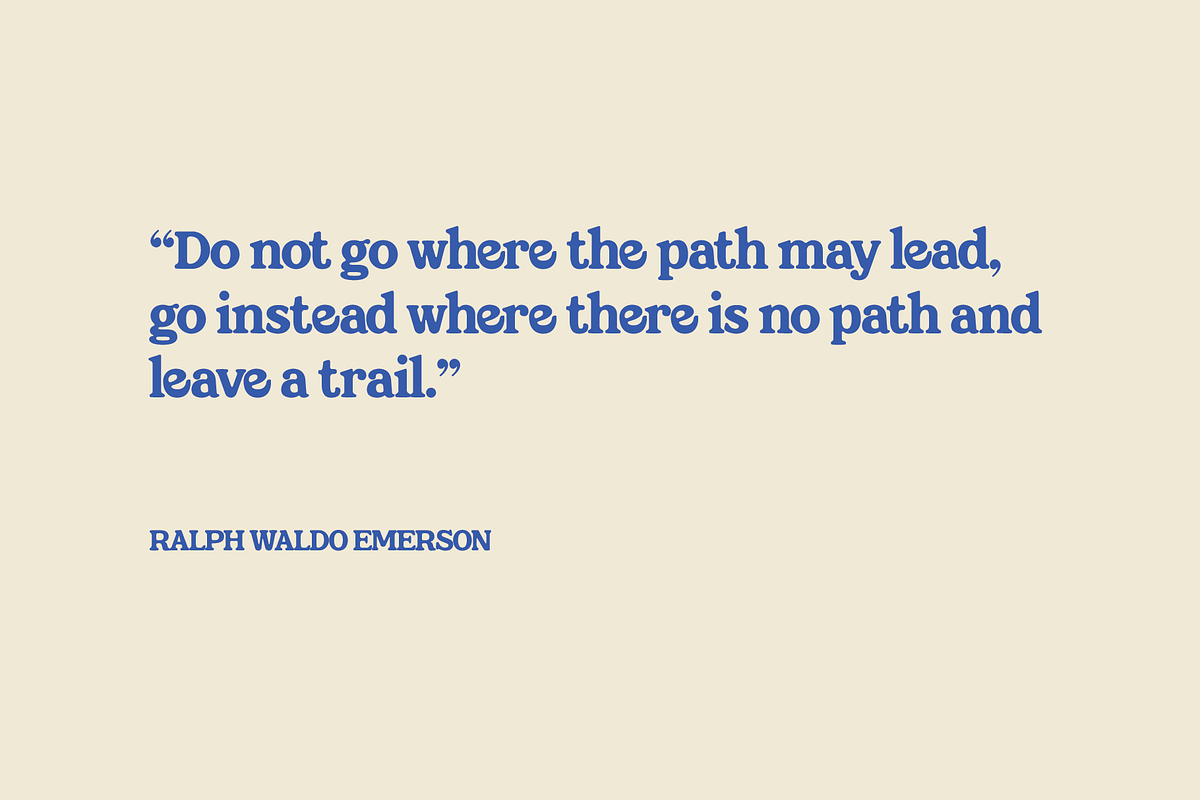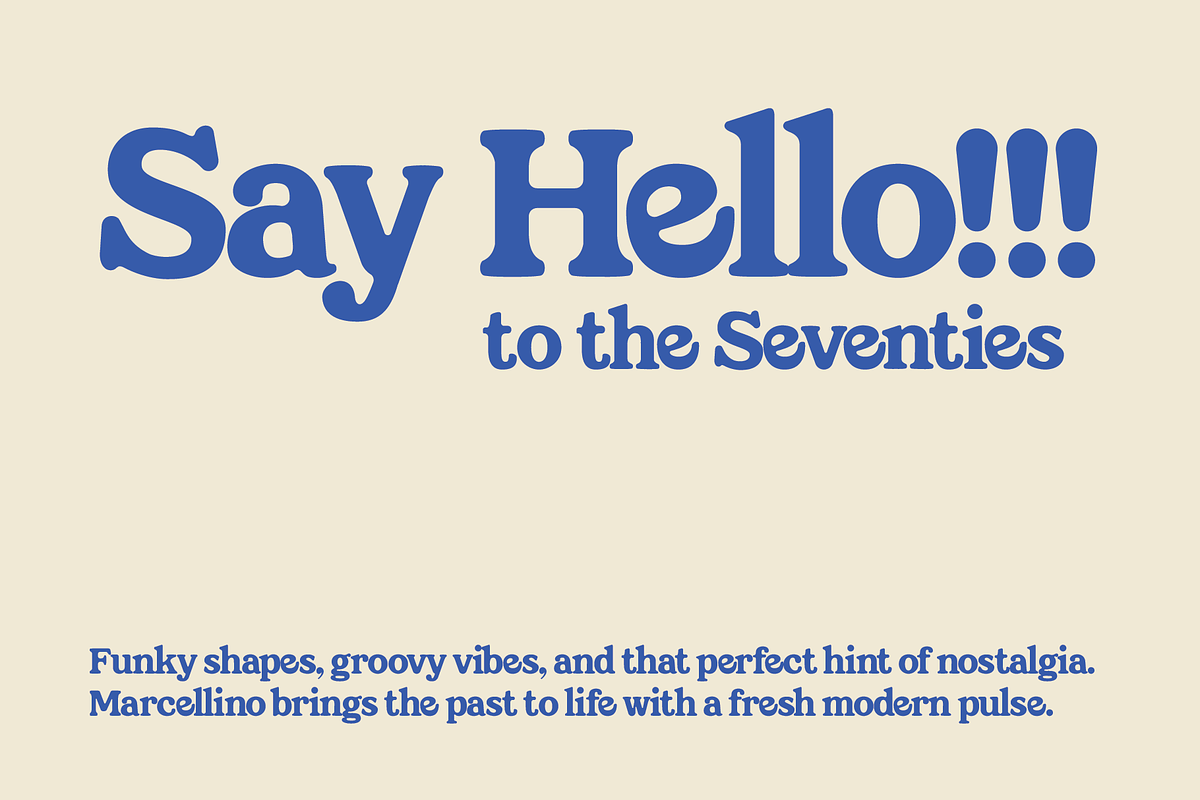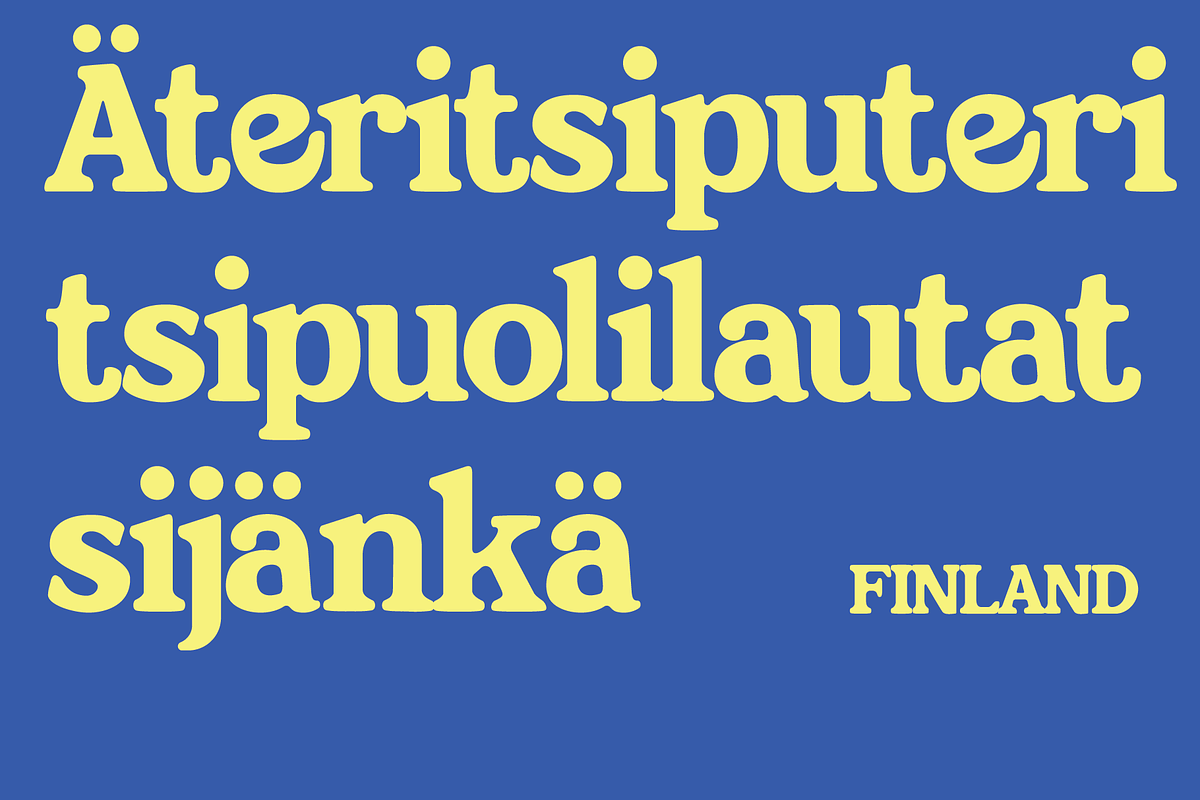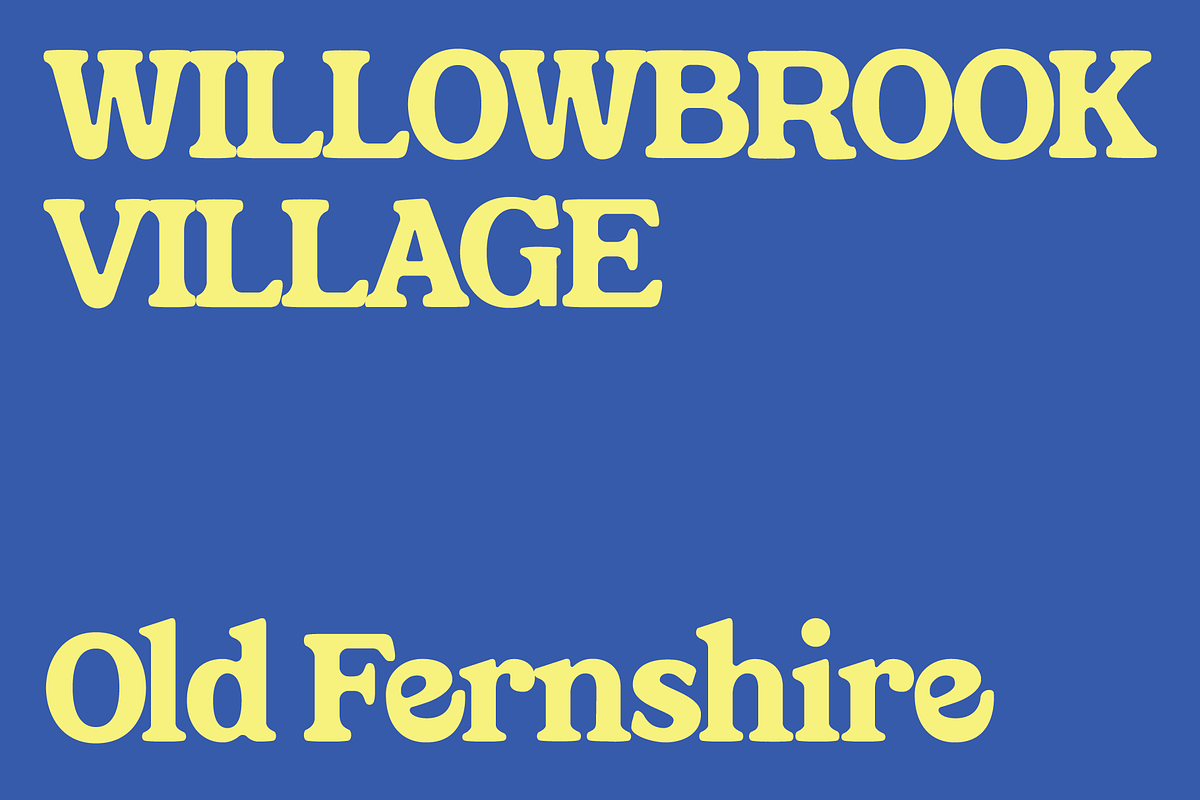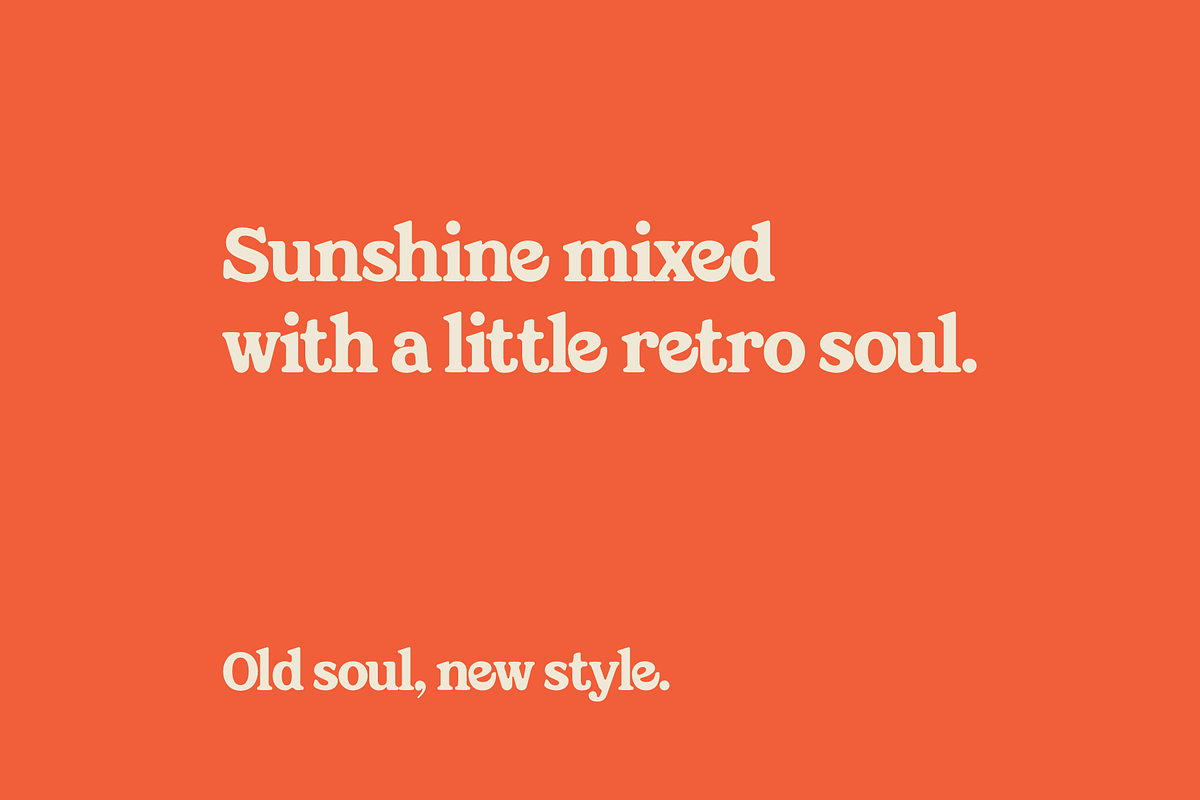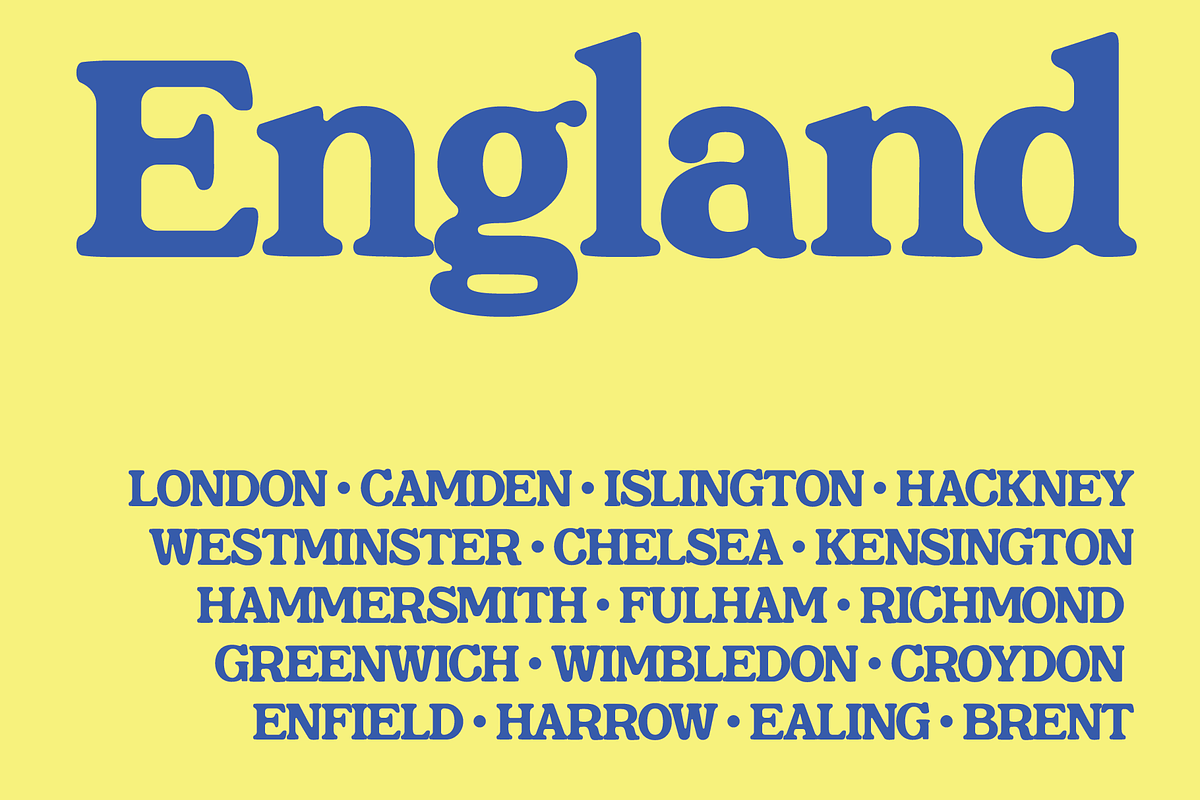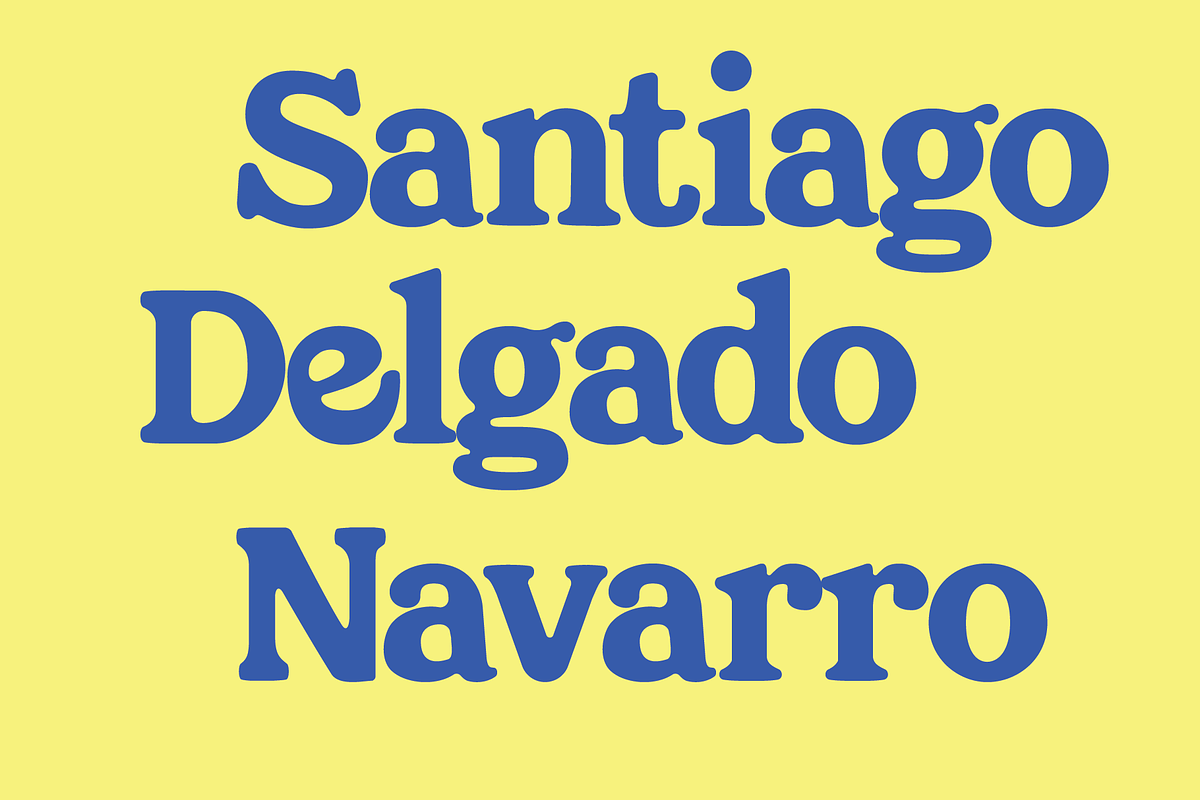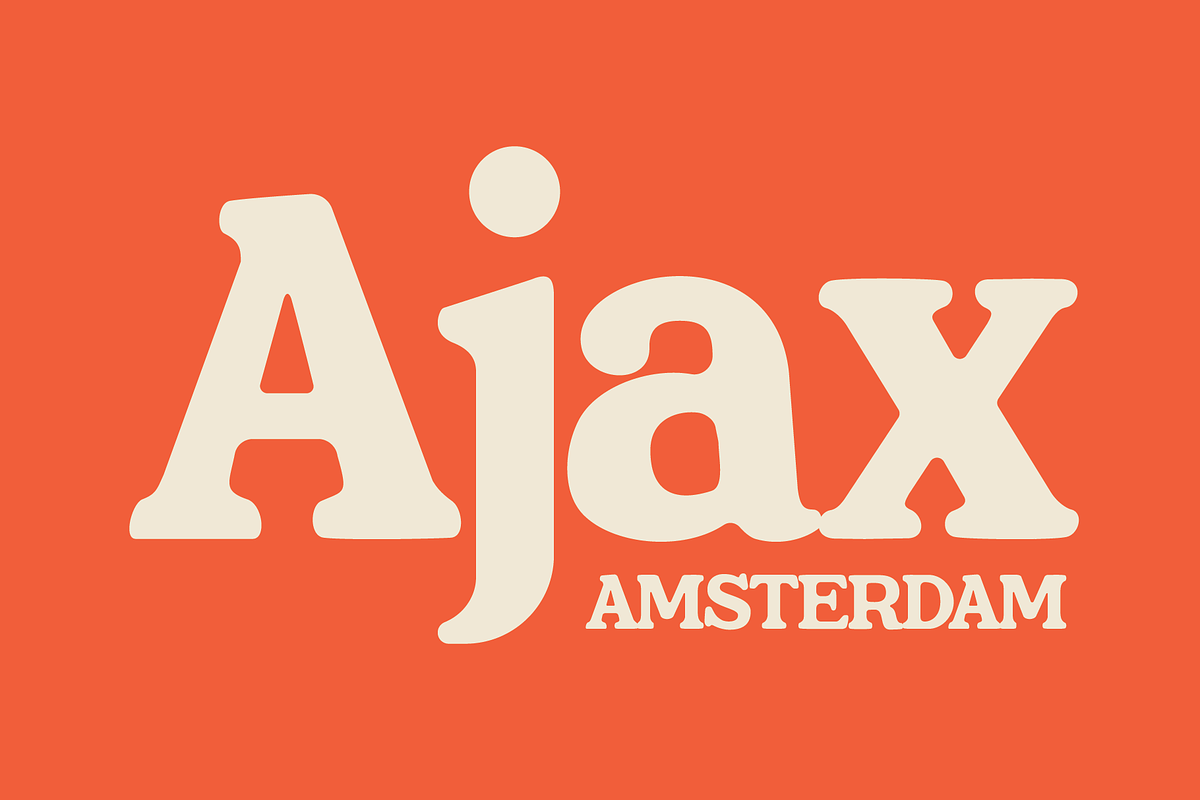
MGN Marcelino
MGN Marcelino is a playful yet refined serif typeface that evokes a nostalgic retro charm with a touch of modern sophistication. Its bold curves, soft terminals, and generous spacing make it ideal for striking headlines, vintage posters, and expressive branding. The font captures the warmth of mid-century design while maintaining clean, contemporary readability—perfect for creators seeking character, personality, and timeless appeal in their typography.